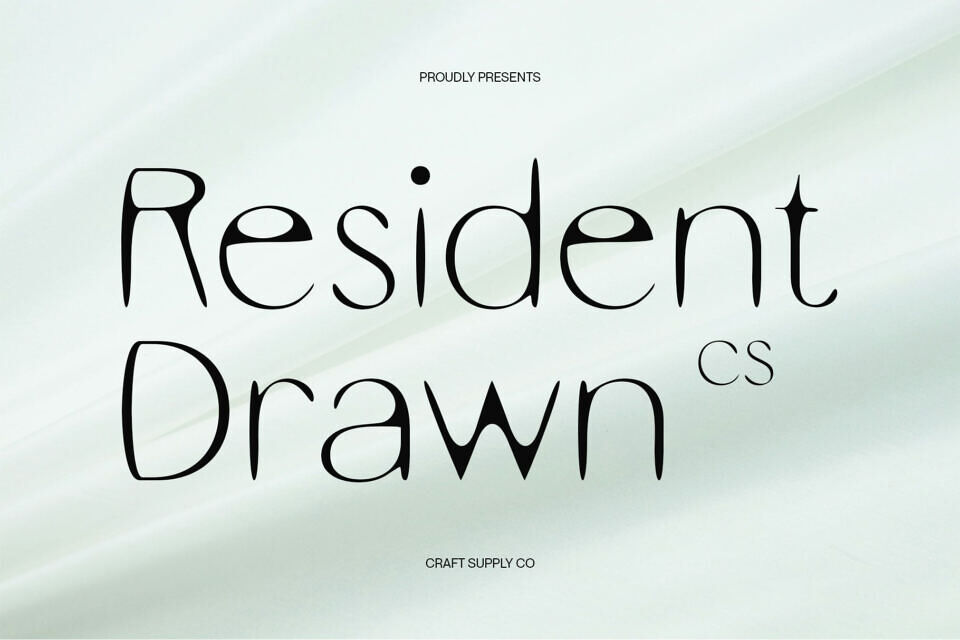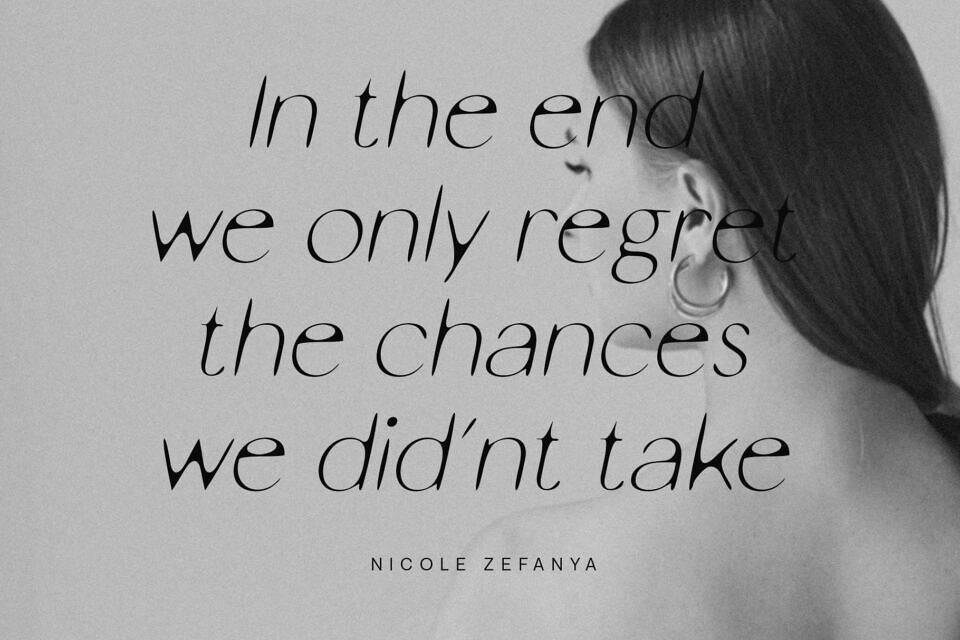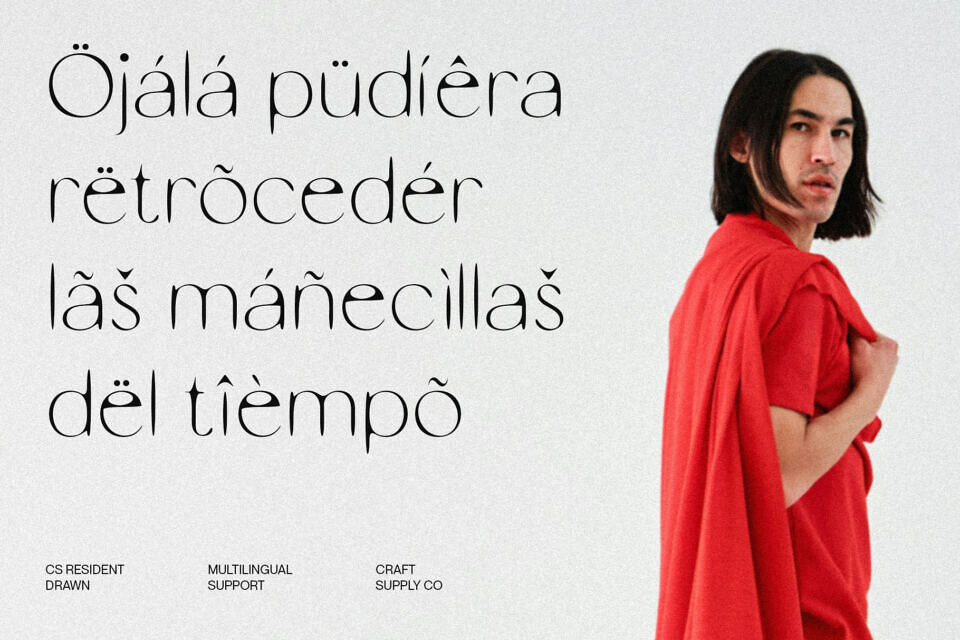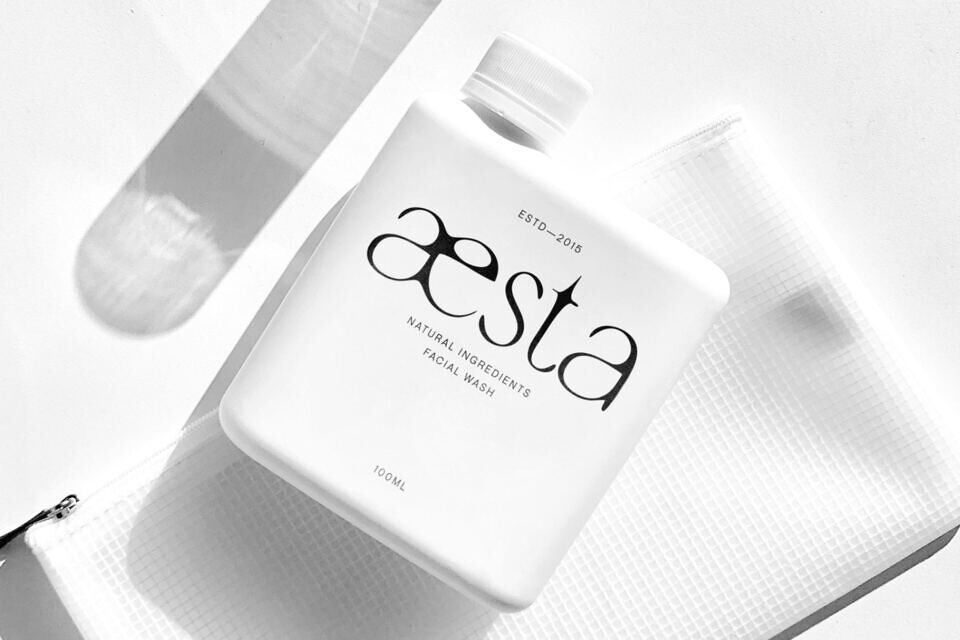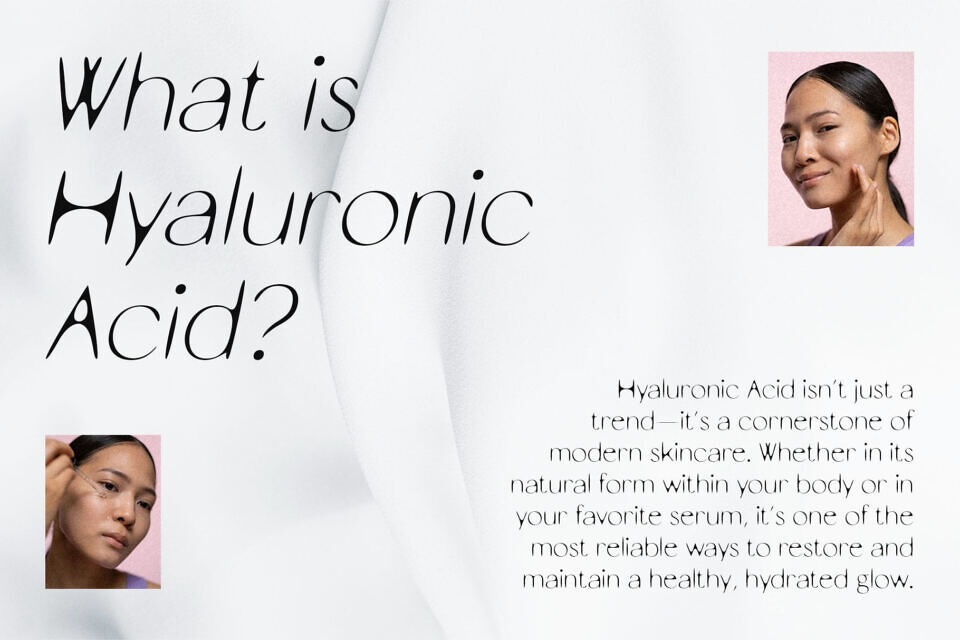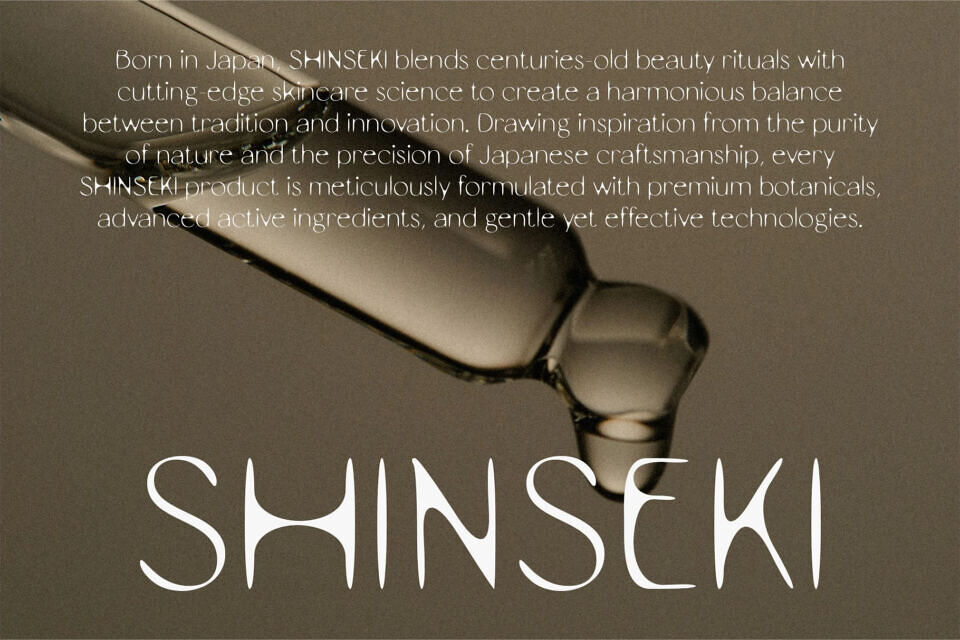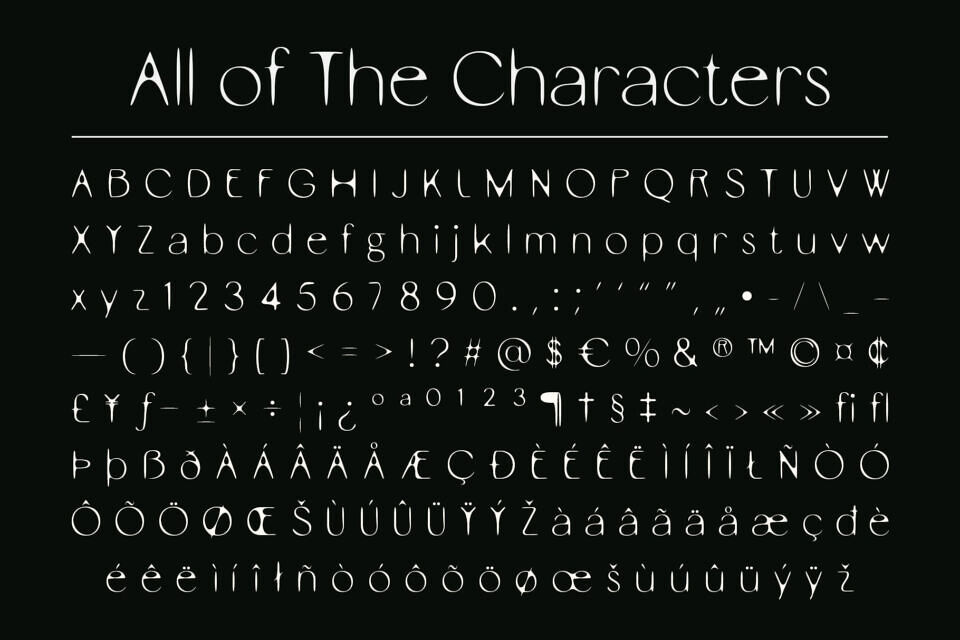
This modern sans-serif font blends sleek, clean lines with a subtle, handcrafted texture. Its elegant design offers sophistication and clarity, perfect for branding, editorial, and posters.
The unique, expressive typography enhances readability while adding artistic flair and visual interest, elevating any project with distinctive refinement.